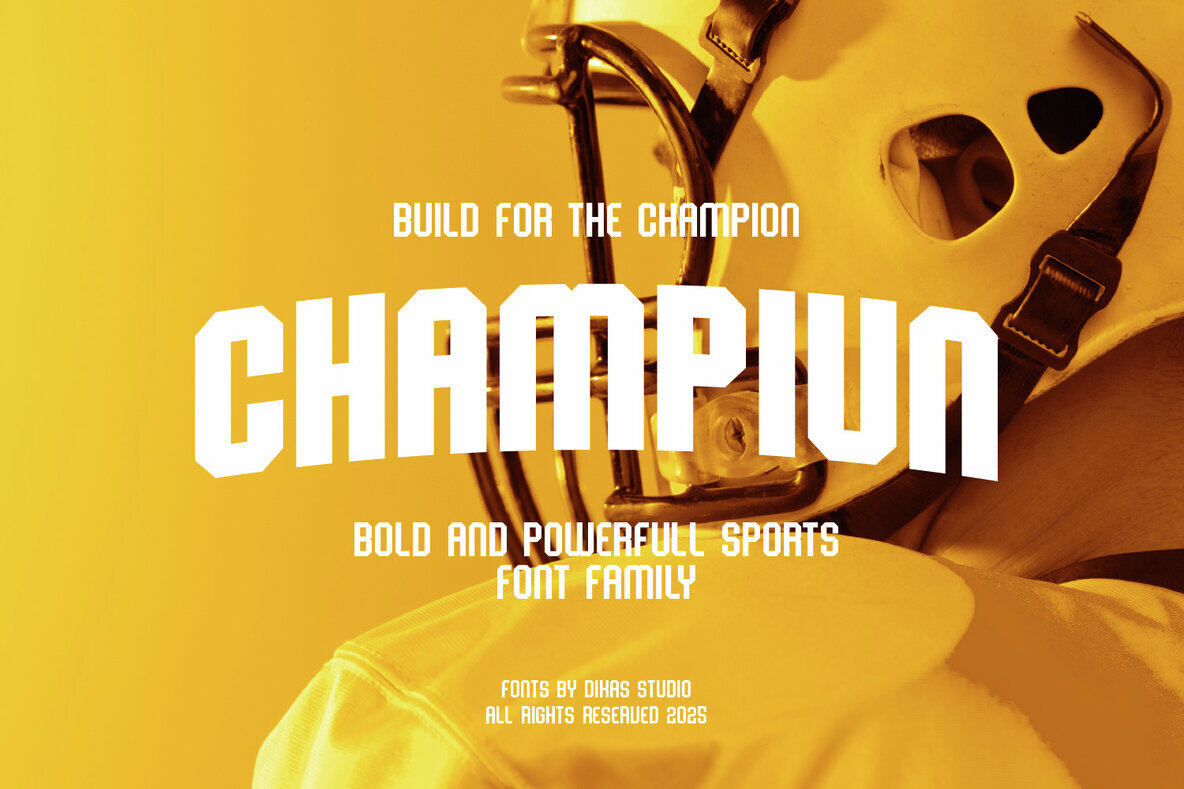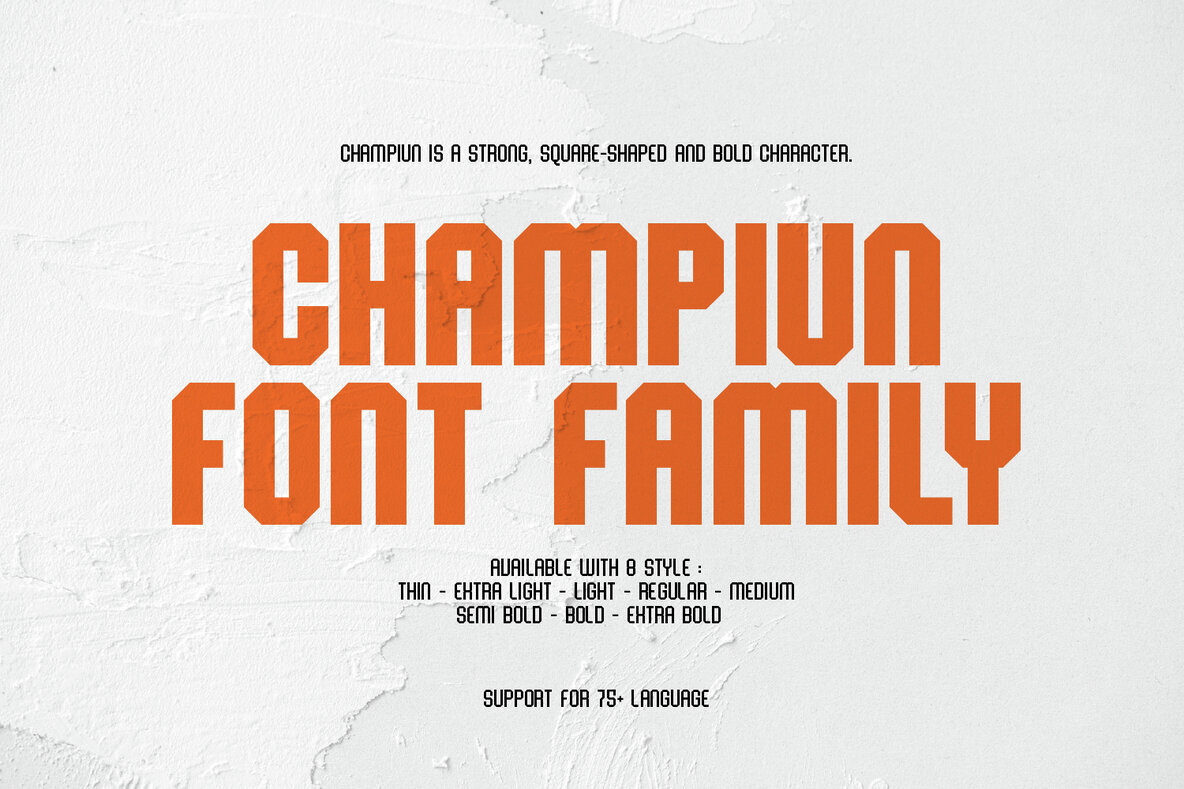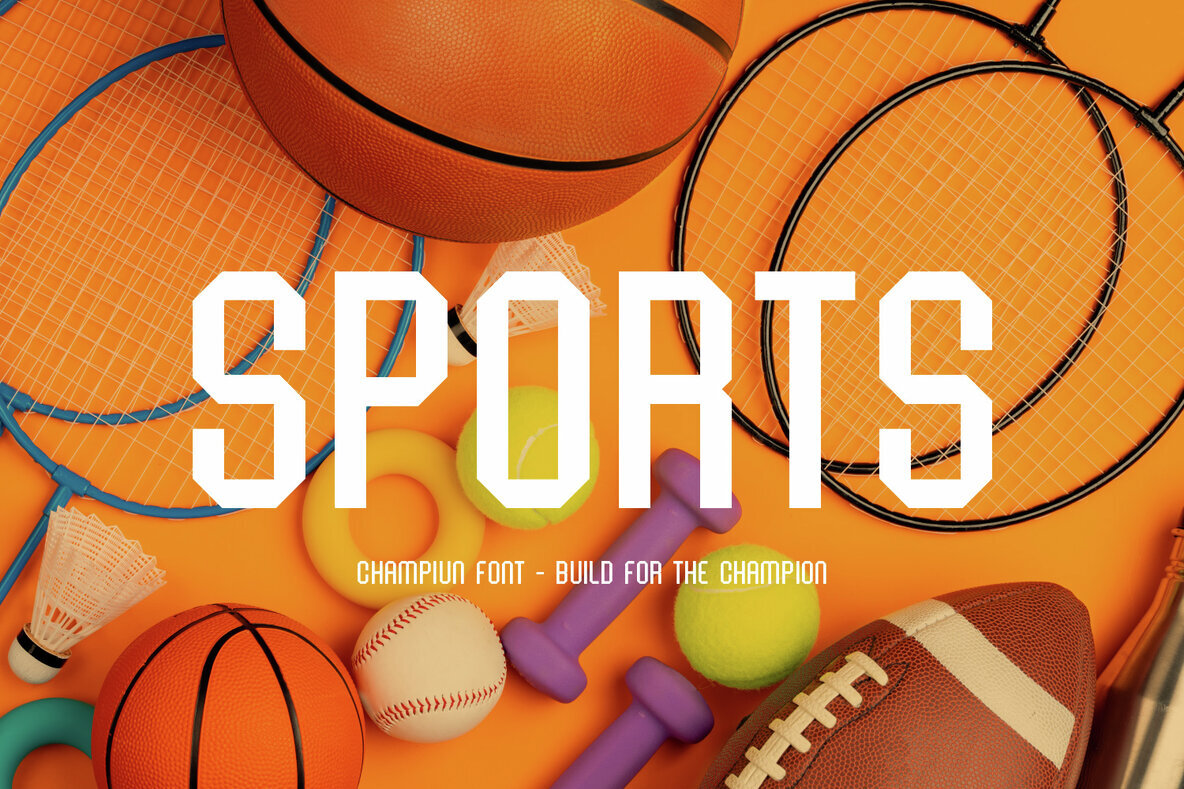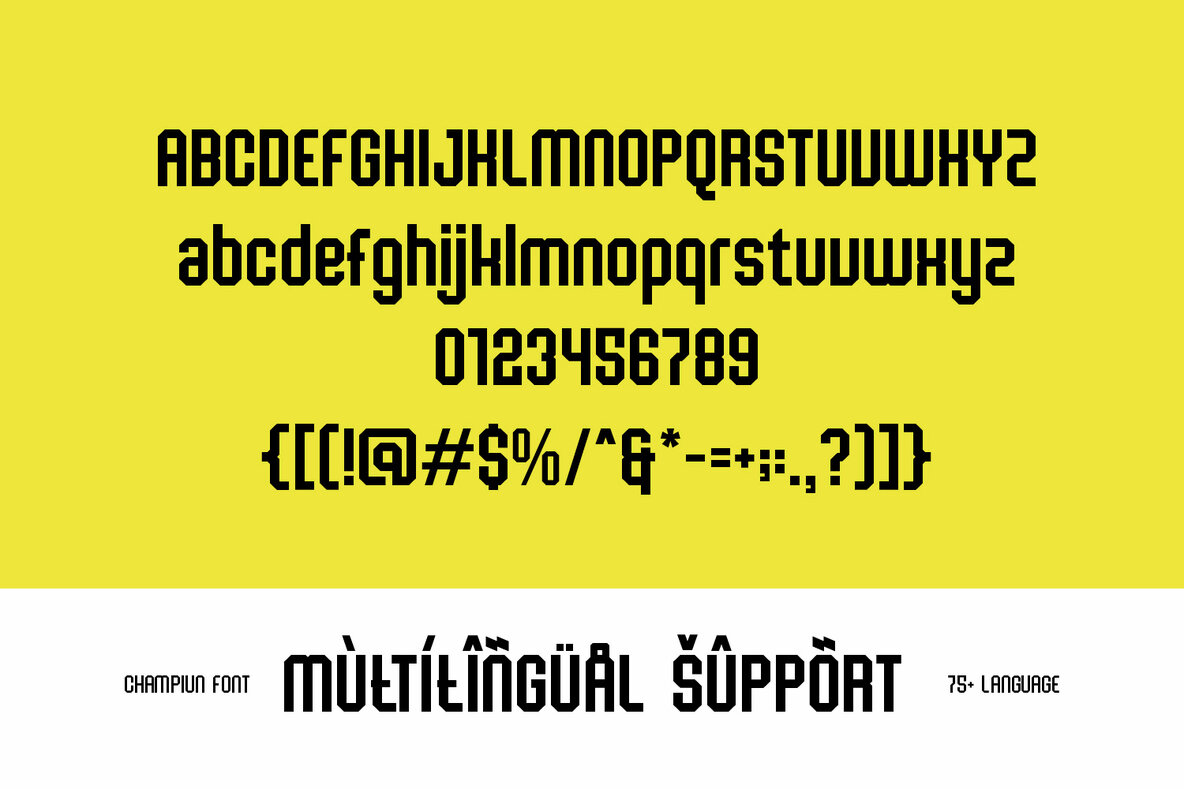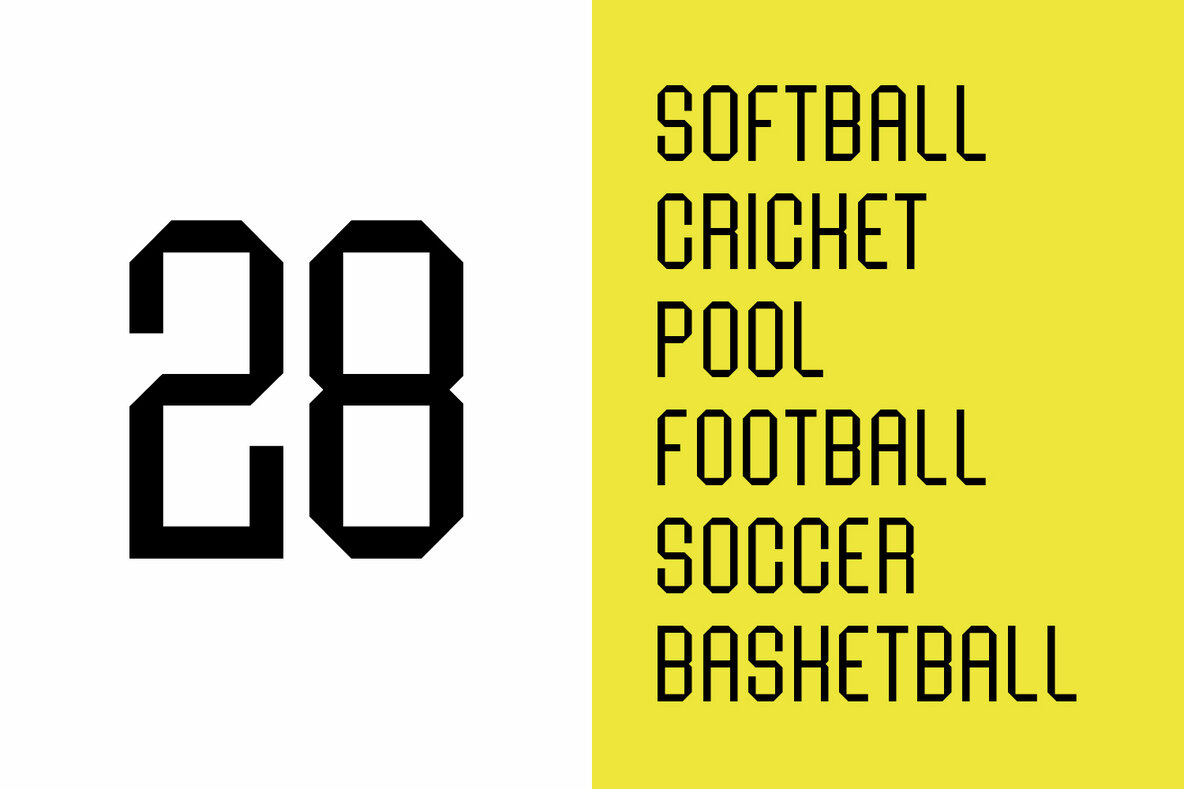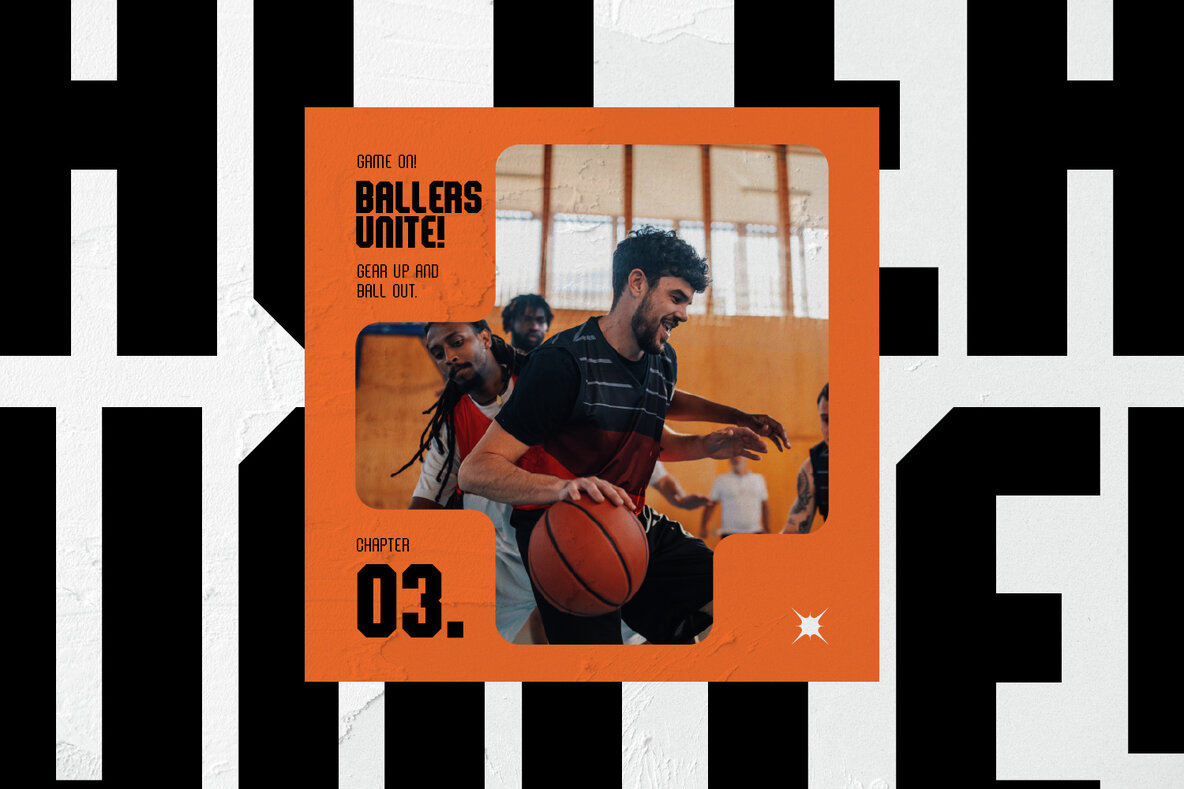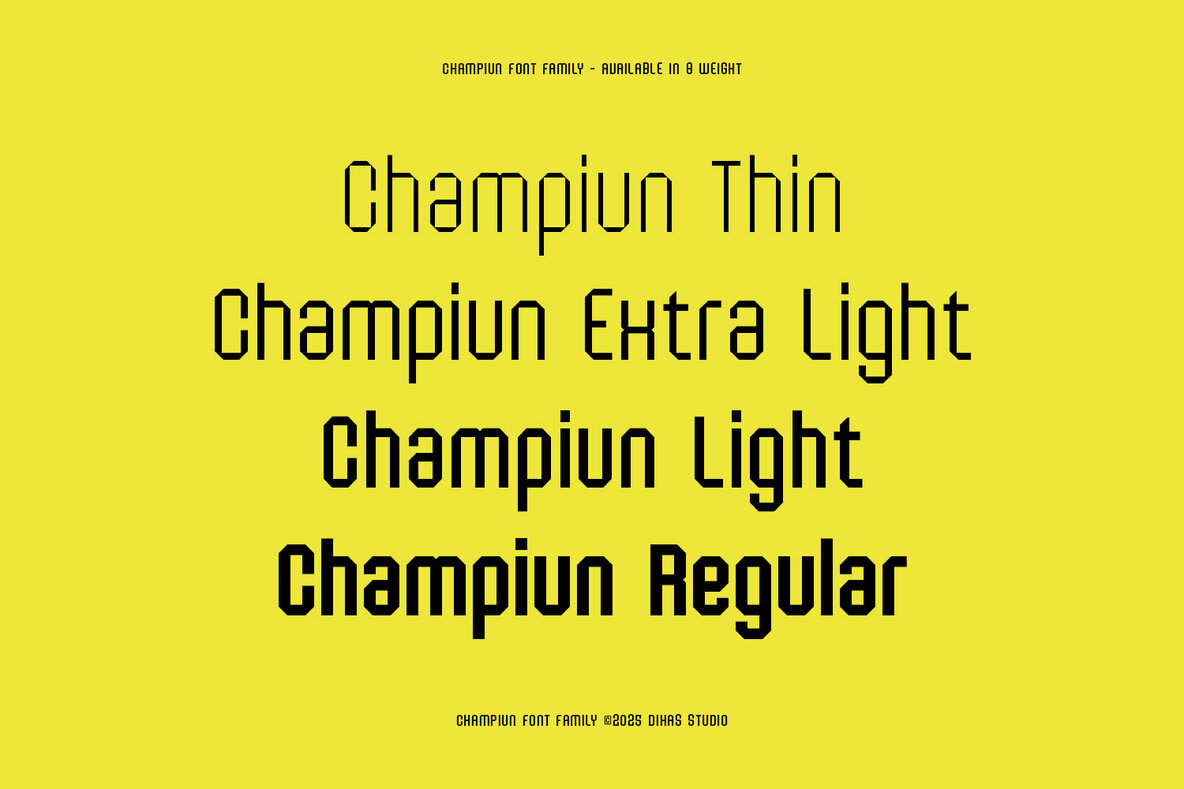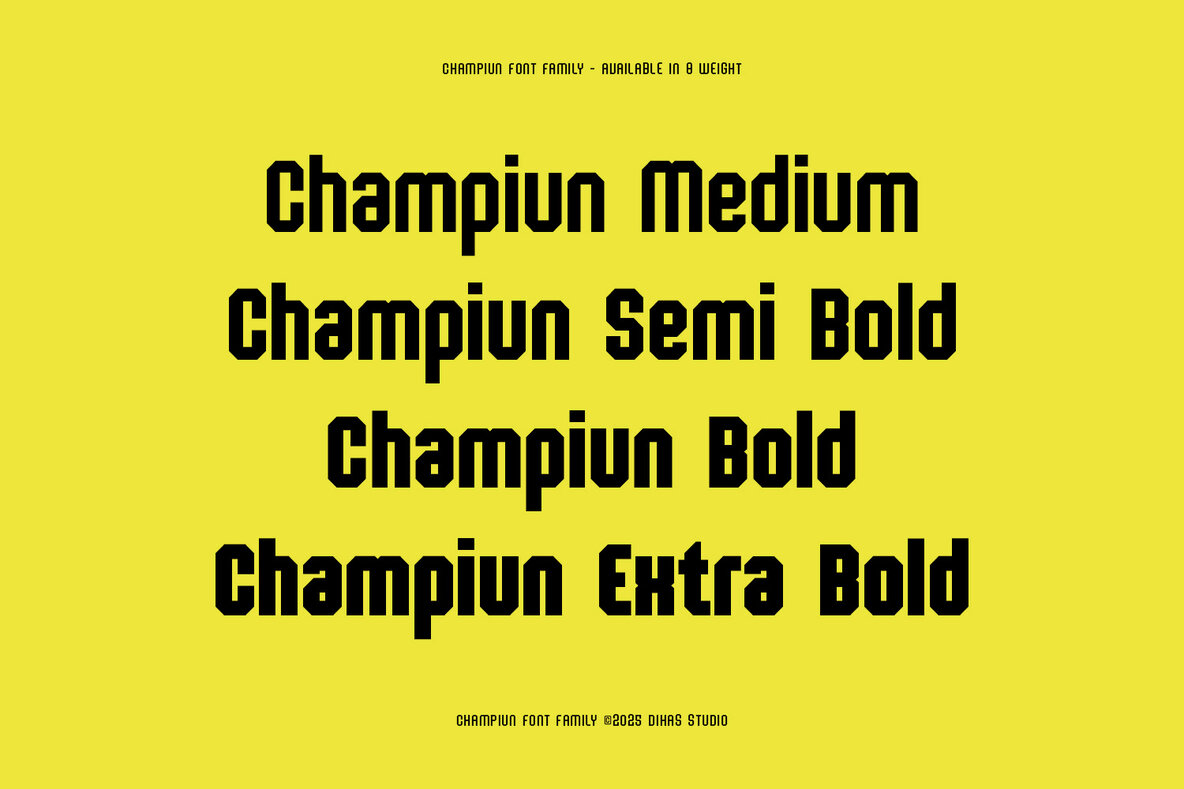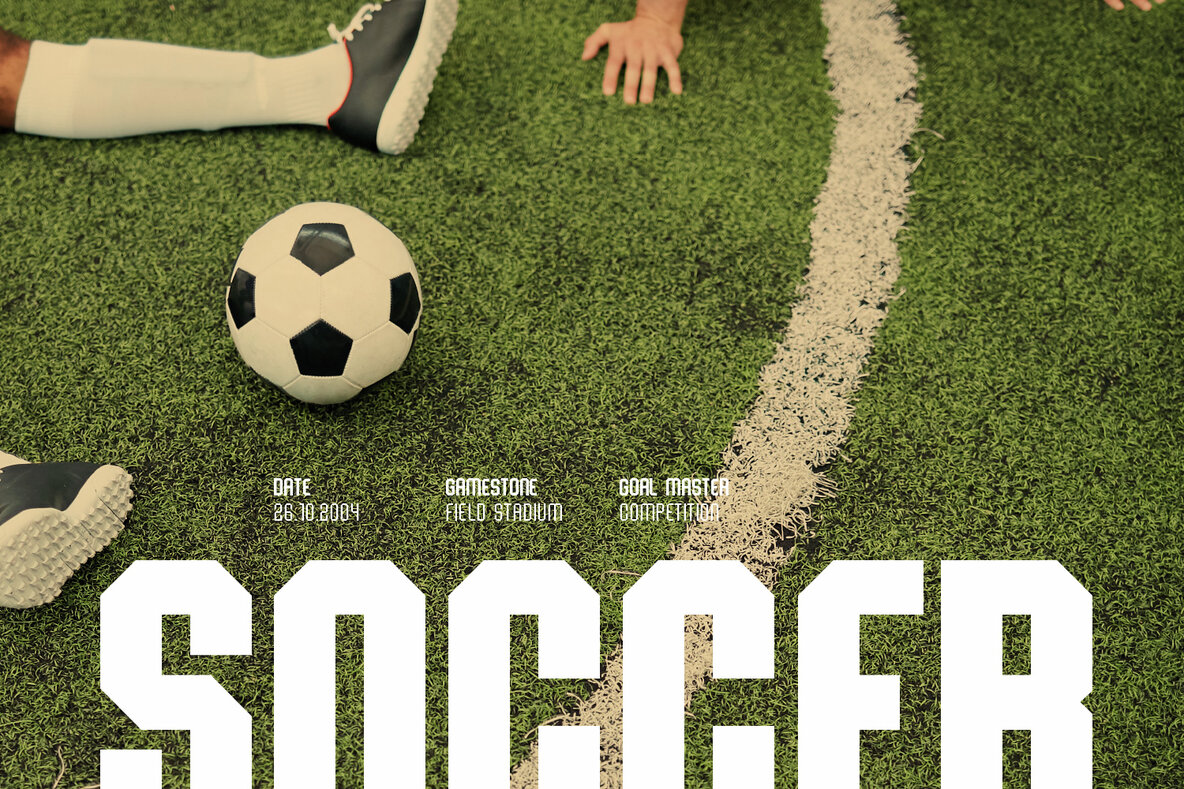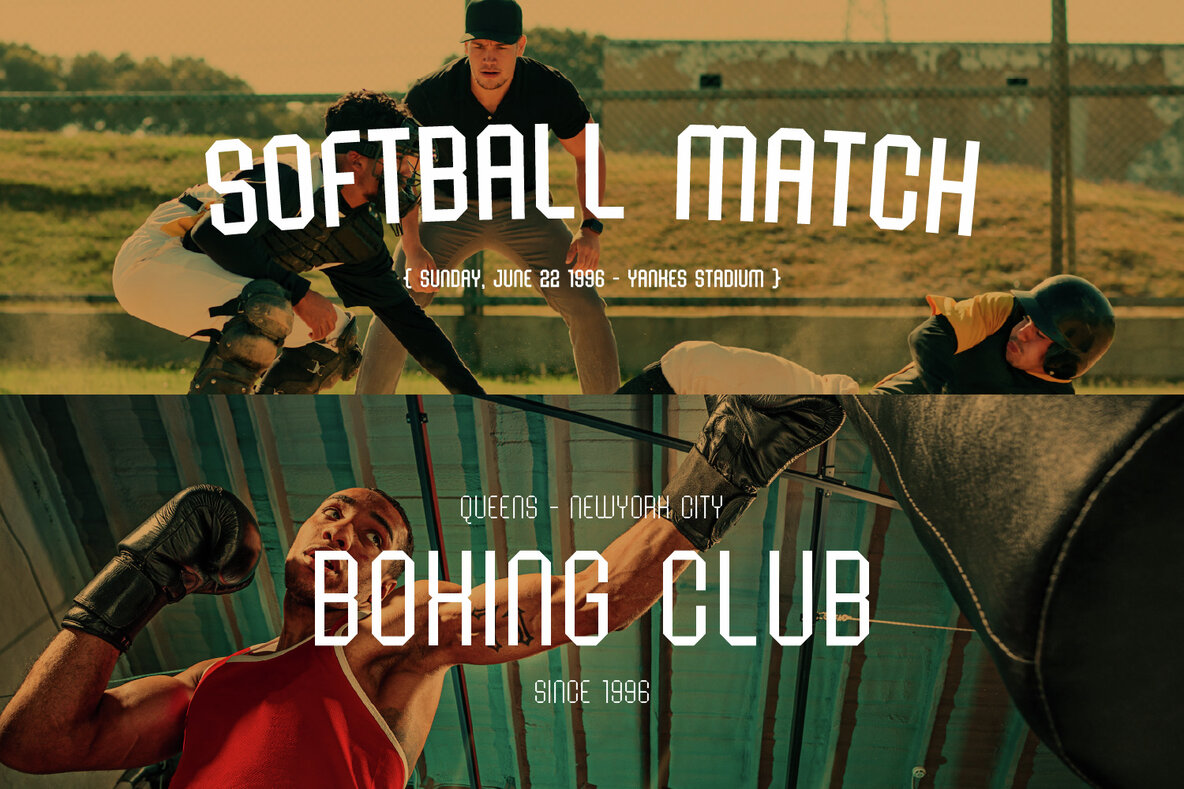
Champiun Font
Champiun stands as a formidable sans serif font characterized by its strong, square shapes and sharp corners. Crafted to create a striking impact, it offers eight versatile weights, affording you complete adaptability in addressing diverse design needs. This font is particularly well-suited for applications that require an aura of strength and vigor, such as sports branding, gym promotions, and athletic posters. Champiun infuses each project with a robust, self-assured aesthetic.Champiun: Bold and Powerful Sports Fonts